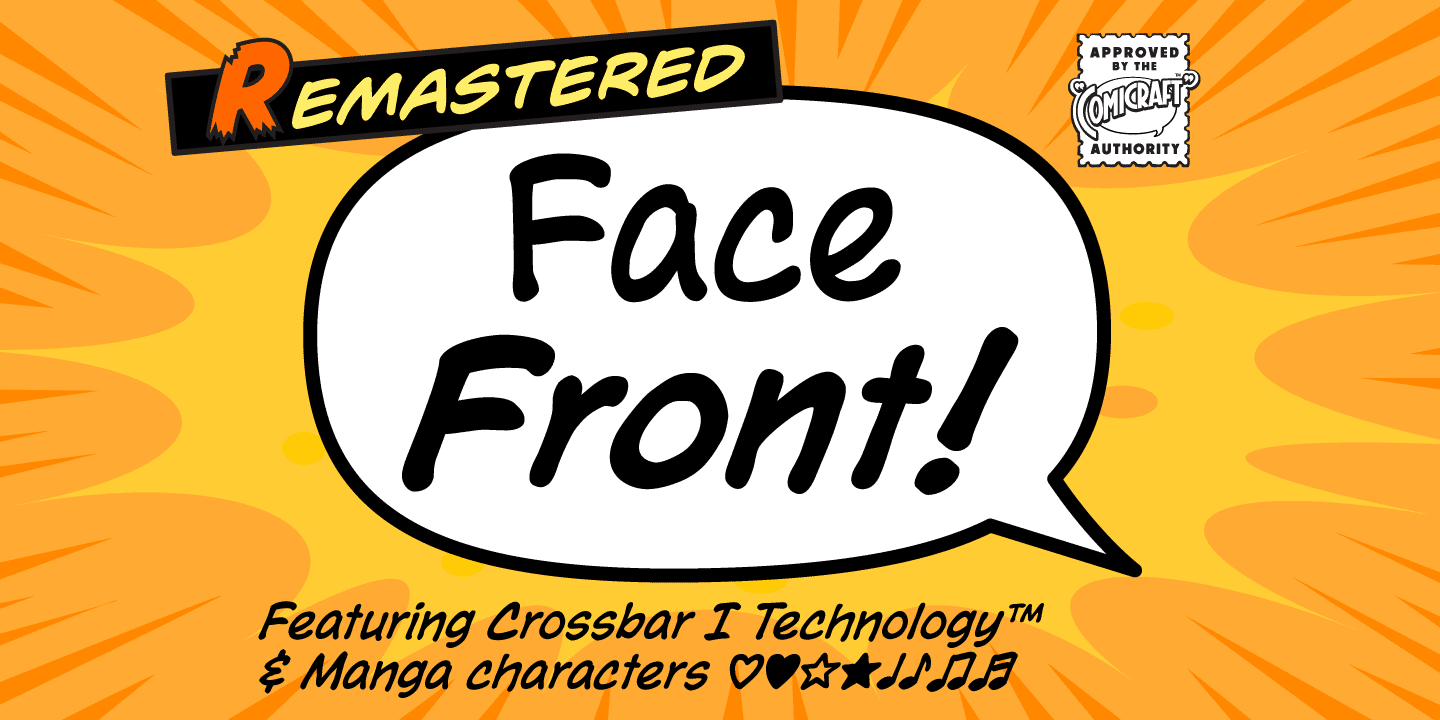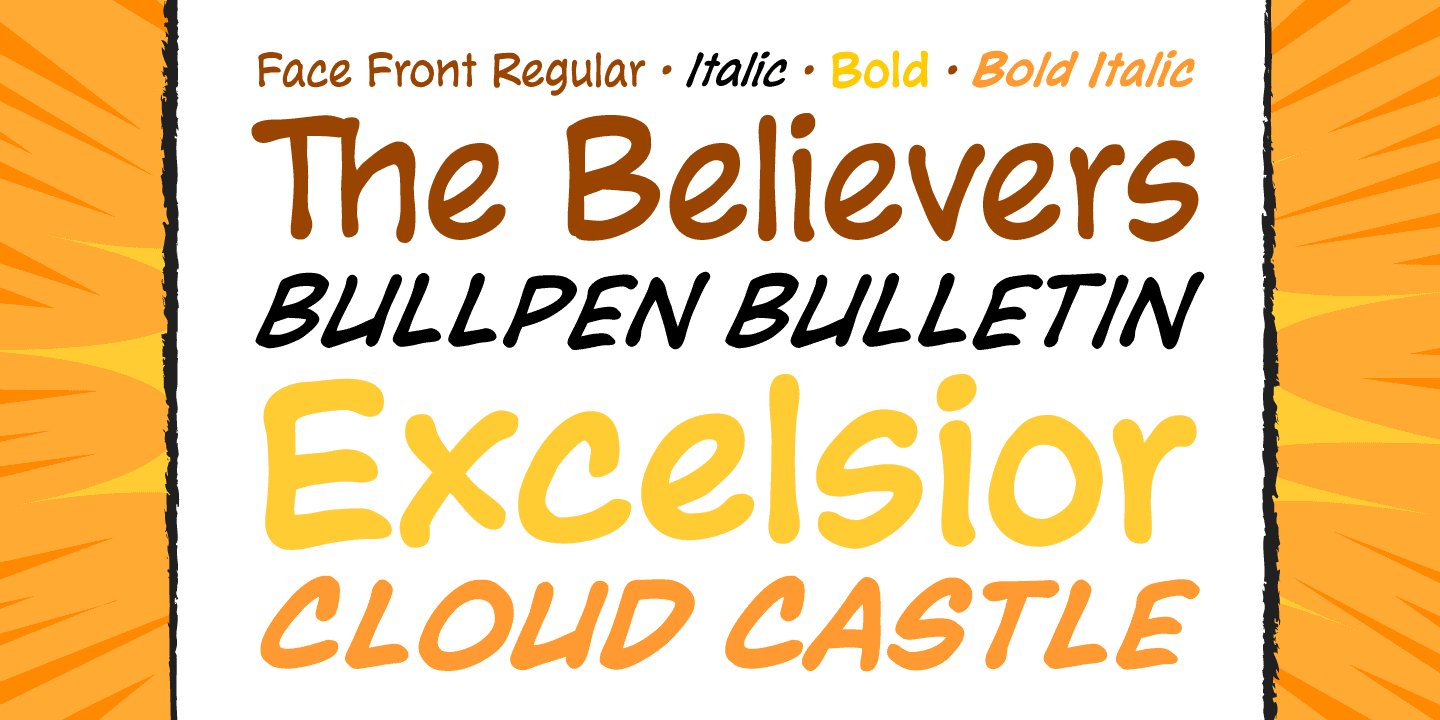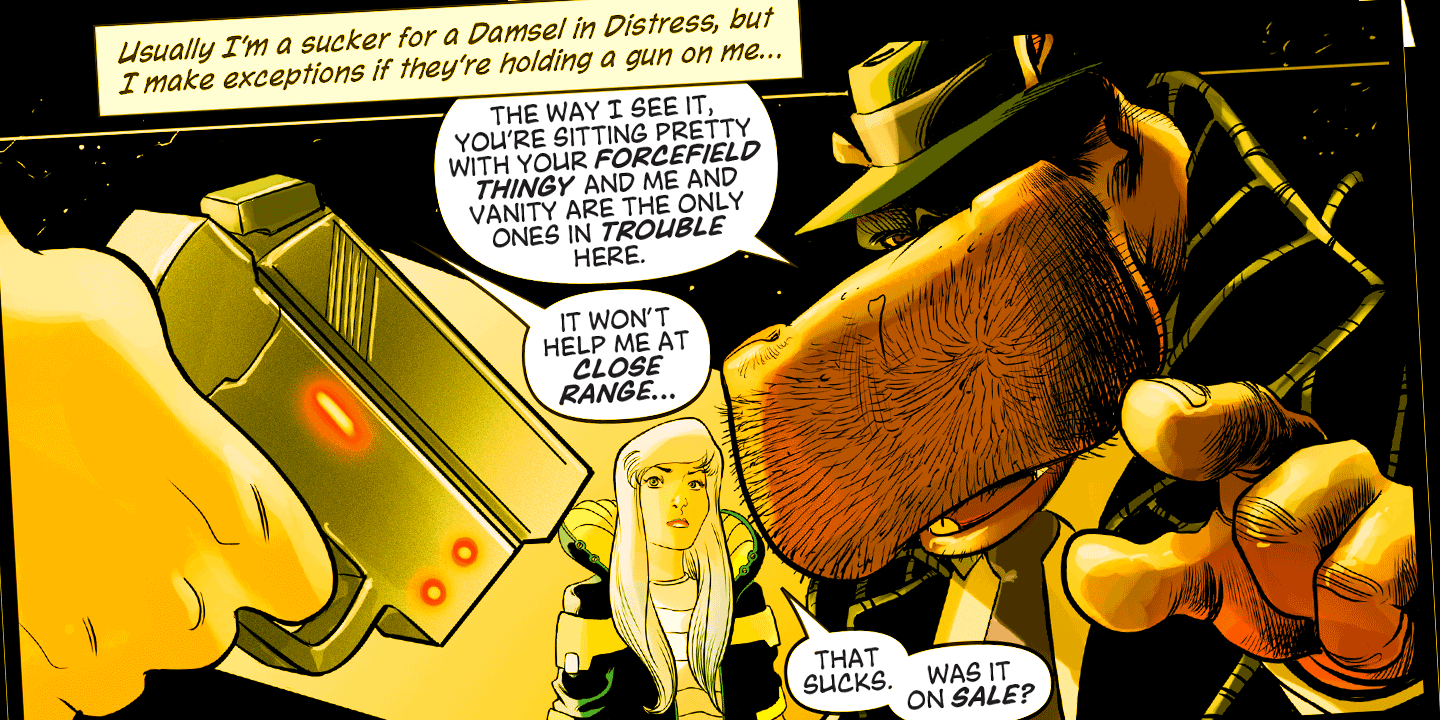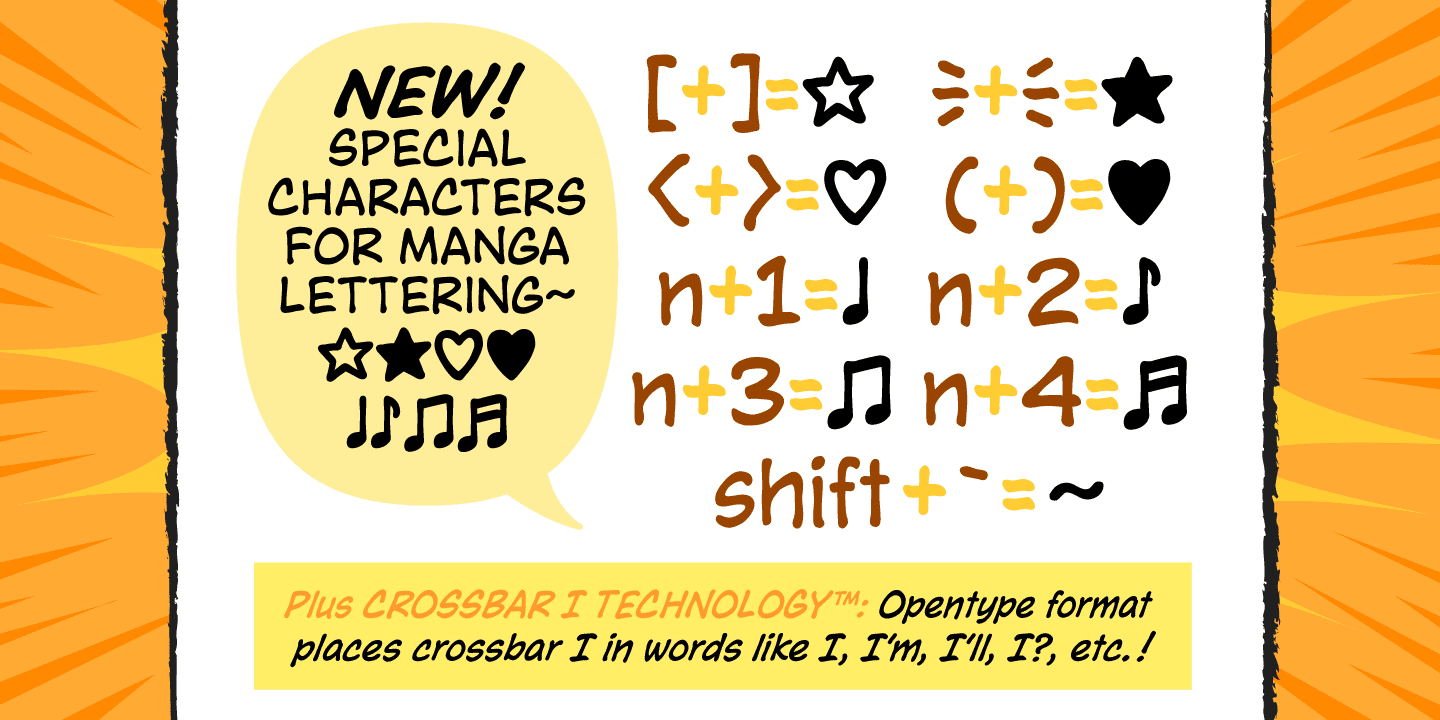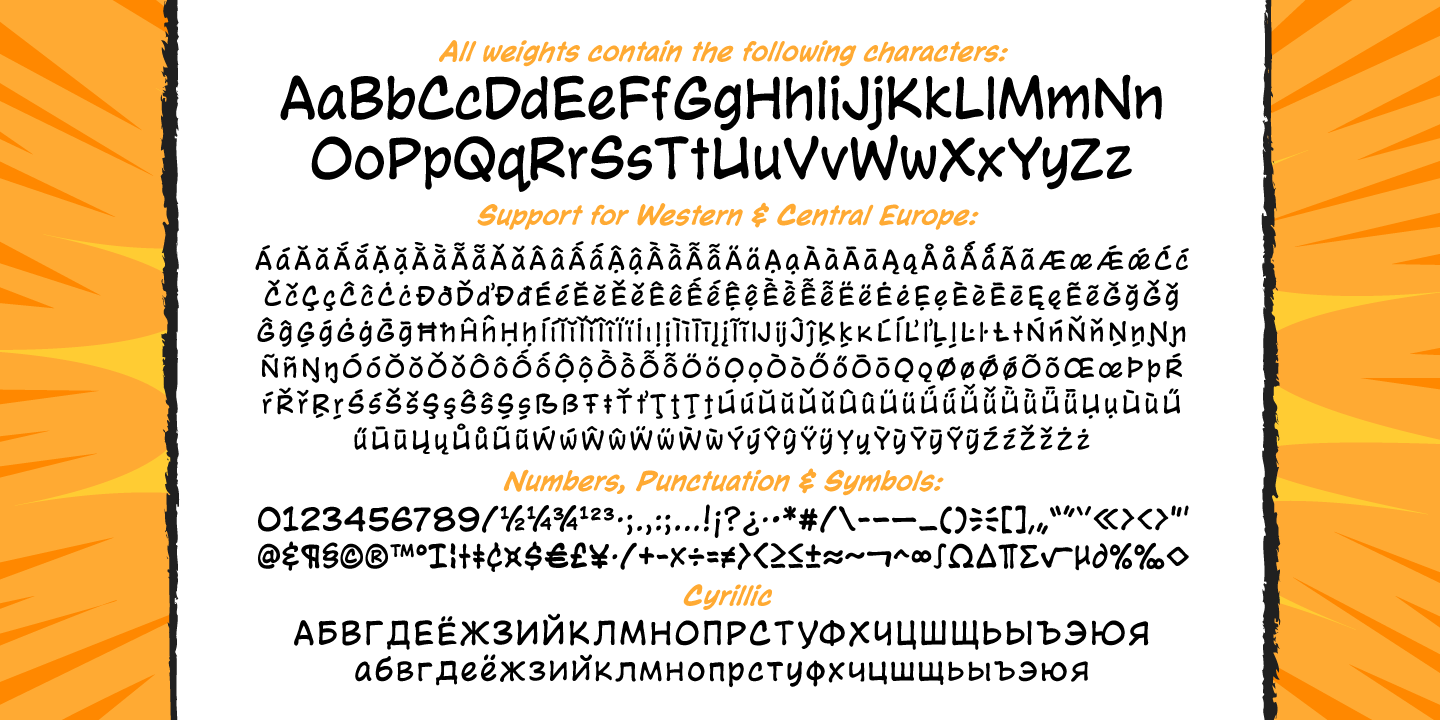
Face Front
FACE FRONT, True Believers, This is The Issue You've Been Waiting For! In response to requests from our Hawkeyed customers, we're making this Super Team of fonts -- which our fontmeister, JG, Assembled for the pages of THE AVENGERS -- available for the first time!
A handsome collection of characters that would put a Norse God to shame, FACE FRONT is composed of Earth's Mightiest regular, italic, bold and bold italic faces -- in UPPER and lower case. And now, these Living Legends can now be yours! Rick Jones not included!